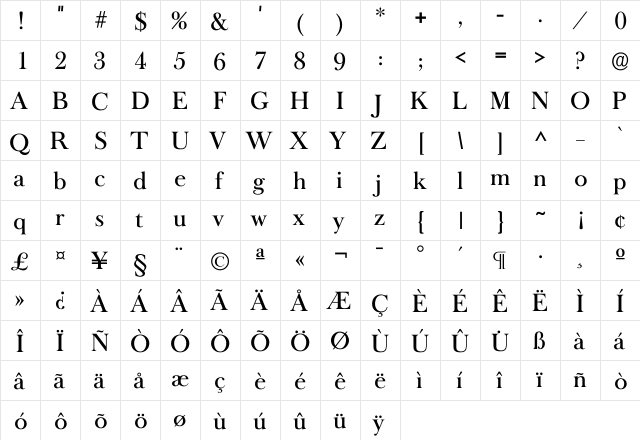
Oldbasker Medium
Design Context for Oldbasker Typeface
Oldbasker is a composed and adaptable typeface that performs quietly and consistently across a wide range of design contexts.